Best Bubble Fonts for Fun & Creative Designs
Hey there, readers! Have you ever wished your designs could literally burst with personality? That's where bubble fonts come in. They're the playful, eye-catching fonts that bring a whimsical touch to any project, from logos and banners to social media graphics and invitations. But with so many bubble fonts out there, how do you choose the perfect one?
Don't worry; I've got you covered. I've spent hours analyzing and testing different bubble fonts, and I'm excited to share my top picks with you. Whether you're a seasoned designer or just starting out, this guide will help you find the best bubble fonts to elevate your creative projects. Let's dive in!
What are Bubble Fonts?
Bubble fonts, also known as balloon fonts, are a type of display font characterized by their rounded, inflated letterforms. They often feature a playful, childlike aesthetic, making them perfect for adding a touch of whimsy to your designs.
These fonts have gained immense popularity due to their ability to evoke a sense of fun, joy, and celebration. They create a visually appealing contrast with more traditional fonts, adding a unique touch to any design.
Top 10 Best Bubble Fonts for Fun & Creative Designs
Bubble fonts are a fantastic way to add a touch of whimsy and fun to your designs. But with so many options available, it can be overwhelming to choose the perfect one for your project. To ease your selection process, we’ve compiled this list of 10 of the best bubble fonts that are sure to make your designs pop.
1. 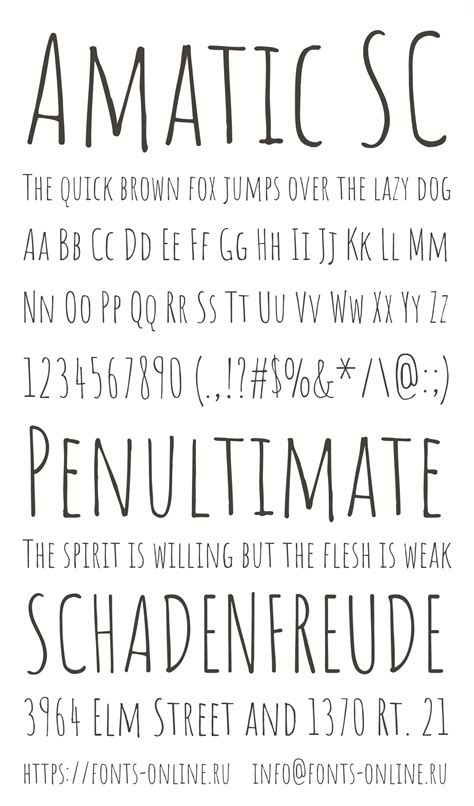
Bubblegum Sans:
Bubblegum Sans is a playful and bouncy font with a touch of retro charm. Its rounded letterforms and playful curves are perfect for adding a fun and energetic vibe to your designs. With its versatility, Bubblegum Sans can be used for a wide range of projects, from children's books to branding for candy shops.
2.
Boogaloo:
Boogaloo is a bold and playful font with a vintage feel. Its exaggerated curves and bouncy letterforms give it a distinctive retro charm that is perfect for projects that need a touch of nostalgia. Use Boogaloo for creating eye-catching logos for vintage-inspired businesses, adding a playful touch to posters, or designing fun and unique invitations.
3. 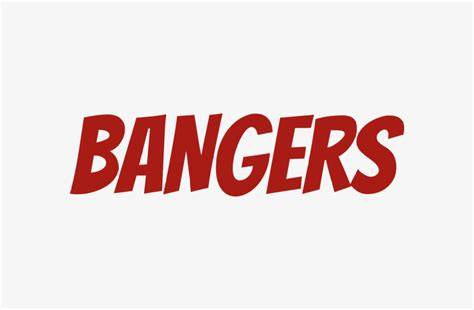
Bangers:
Bangers is a bold and chunky bubble font that is perfect for adding a strong visual impact to your designs. Its thick strokes and playful curves make it highly legible even at smaller sizes, and its bold personality is ideal for grabbing attention. Bangers is a great choice for headlines, titles, and branding projects where you want to make a statement.
4.
Amatic SC:
Amatic SC is a playful and handwritten bubble font with a charming and casual feel. Its uneven letterforms and slightly irregular spacing give it a unique personality that is perfect for adding a touch of authenticity to your designs. Use Amatic SC for creating hand-lettered quotes, adding a personal touch to social media graphics, or designing eye-catching invitation cards.
5. 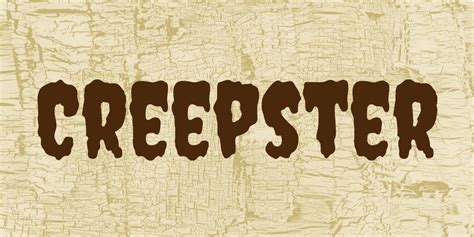
Creepster:
Creepster is a bold and spooky bubble font that adds a fun and playful touch to Halloween-themed projects. Its exaggerated letterforms and unique character design make it perfect for creating eye-catching posters, invitations, and social media graphics. Creepster is a great choice for adding a touch of whimsy and horror to your Halloween designs.
6. 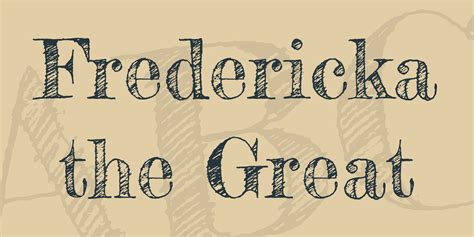
Fredericka the Great:
Fredericka the Great is a fun and playful bubble font with a whimsical feel. Its rounded letterforms and unique character design give it a charming and cheerful personality that is perfect for adding a touch of joy to your designs. Fredericka the Great is a great choice for creating eye-catching titles, headings, and branding projects where you want to create a positive and welcoming atmosphere.
7.
Press Start 2P:
Press Start 2P is a retro-inspired bubble font that is perfect for adding a nostalgic touch to your designs. Its pixelated letterforms and bold design evoke a sense of the pixelated world of retro video games. Use Press Start 2P for creating eye-catching titles for video game-inspired projects, designing retro-themed posters, or adding a fun touch to branding projects for gaming companies.
8.
Gloria Hallelujah:
Gloria Hallelujah is a bold and decorative bubble font that adds a touch of elegance and sophistication to your designs. Its exaggerated curves and unique character design make it perfect for creating eye-catching headlines, titles, and branding projects. Gloria Hallelujah is a great choice for adding a touch of whimsy and elegance to your projects.
9. 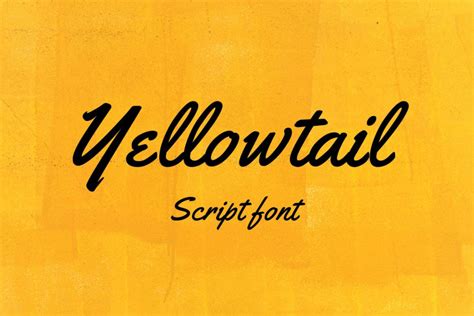
Yellowtail:
Yellowtail is a playful and handwritten bubble font that is perfect for adding a touch of whimsy and personality to your designs. Its rounded letterforms and slightly irregular spacing give it a casual and friendly feel. Use Yellowtail for creating eye-catching quotes, adding a personal touch to social media graphics, or designing unique and fun invitation cards.
10.
Cherry Cream Soda:
Cherry Cream Soda is a fun and playful bubble font that is perfect for adding a touch of sweetness and nostalgia to your designs. Its rounded letterforms and playful curves evoke a sense of the 1950s and 1960s, adding a retro charm to your projects. Use Cherry Cream Soda for creating eye-catching titles for vintage-inspired projects, designing nostalgic posters, or adding a fun touch to branding projects for retro-themed businesses.
Why Use Bubble Fonts?
1. Adds Personality and Charm:
Bubble fonts are known for their playful and whimsical nature, which can instantly add personality and charm to any design. They're perfect for projects where you want to create a fun and inviting atmosphere.
2. Enhances Legibility:
Some bubble fonts, with their rounded letterforms and open shapes, can actually improve legibility. This makes them excellent choices for headings, titles, and other elements where you want to ensure your message is clear and easy to read.
3. Creates Visual Interest:
Bubble fonts can instantly grab attention and create visual interest within your designs. They're perfect for making your work stand out from the crowd.
4. Works Well for Different Projects:
Bubble fonts have a wide range of applications, from logos and branding to social media graphics and invitations. They can be used for everything from children's books to business cards, depending on the style and design you're after.
Tips for Using Bubble Fonts Effectively
1. Consider the Context:
Choose bubble fonts that match the tone and style of your project. A playful and whimsical font might not be the best choice for a serious or formal design. Make sure the font aligns with the message you're trying to convey.
2. Pay Attention to Spacing:
Bubble fonts can sometimes have irregular spacing, so it's important to pay attention to kerning and letter spacing. Adjust these elements to ensure that your text looks balanced and readable.
3. Use Restraint:
While bubble fonts are fun, it's important to use them sparingly. Overdoing it can make your designs look cluttered and chaotic. Use them strategically for headlines, titles, or specific elements to add visual impact.
4. Combine with Other Fonts:
Mixing bubble fonts with other fonts can create interesting visual hierarchies and contrast within your designs. Explore pairing them with sans-serif fonts for a modern feel or serif fonts for a classic look.
5. Experiment with Color:
The color you choose for your bubble font can influence how it's perceived. Experiment with different hues and shades to find the color that best suits your overall design aesthetic.
FAQs about Bubble Fonts
1. What are Bubble Fonts Best For?
Bubble fonts are best for projects that need a playful and fun touch, such as children's books, invitations, branding for playful businesses, and social media graphics.
2. Are Bubble Fonts Appropriate for Formal Projects?
In most cases, bubble fonts are not best for formal projects that require a serious and professional tone. However, some bubble fonts with a more refined design might be suitable for certain formal applications, depending on the context.
3. How Can I Find More Bubble Fonts?
You can find free and paid bubble fonts online through websites like Google Fonts, Font Squirrel, and Creative Market. These websites offer an extensive library of fonts that can be downloaded and used for personal and commercial projects.
So, readers, I urge you to unleash your creativity with the charm of bubble fonts. Whether you create logos that pop or social media graphics that spark joy, explore this world of whimsical typefaces. You'll discover a whole new dimension of fun in your designs. And remember, check out other articles on our site for more design tips and insights. Happy designing!